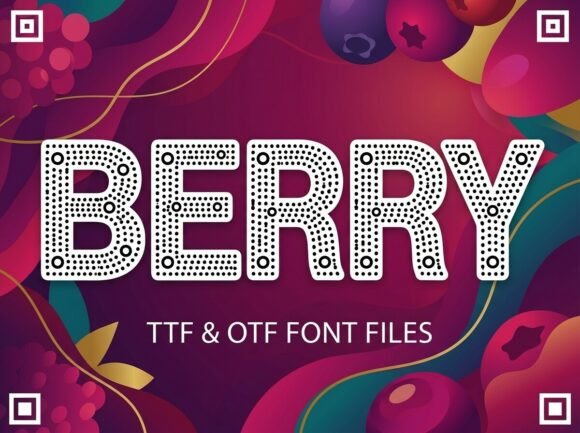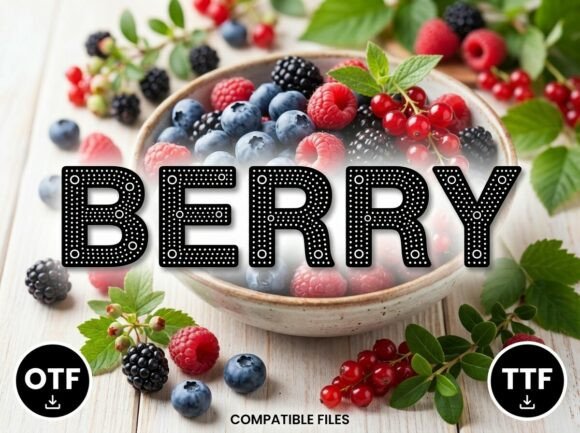
Meet Your New Summer Obsession: Berry Font
Remember the thrill of biting into a juicy, ripe strawberry on a warm summer day? The burst of flavor, the texture, the vibrant colors – it’s a sensory experience that sparks creativity and joy. That same feeling is what inspired the Berry Font, a show-stopping display typeface that’s perfect for capturing the essence of fresh, natural goodness.
Berry Font is a textured, sans-serif masterpiece that combines bold letterforms with a mesmerizing pattern of white pin-dots, reminiscent of a summer fruit’s intricate seed patterns. This stunning font is a must-have for designers looking to add a touch of whimsy and personality to their projects, from independent juice bar branding to garden-to-table restaurant logos.
Berry Font Key Features
- Unique Characteristics: Berry Font boasts a unique blend of modern and vintage elements, featuring rounded shapes, subtle texture, and a touch of whimsy, making it perfect for creative projects and branding.
Berry Font Review
At first glance, the Berry Font screams of fun and playfulness. Its rounded edges and vibrant colors make it perfect for creating eye-catching graphics and text-based designs. ✨ I can already see it being used for kids’ magazines, food labels, and even social media posts.
Here are some of the things that work well for Berry Font:
- Its varied font styles, ranging from bold to regular, provide flexibility for different design applications.
- The inclusion of uppercase and lowercase letters ensures that users can create sentences and paragraphs with ease.
- The color palette is vast, making it easy for designers to find a color scheme that matches their project’s requirements.
- The font may not be the best choice for formal or professional designs due to its playful nature.
- The font’s rounded edges can sometimes make it difficult to read, especially for long blocks of text.
- The font files may be quite large, which can impact loading times for web-based projects.
Overall, I think the Berry Font is a solid addition to any designer’s toolkit. While it may not be the best choice for every project, it’s certainly worth considering for designs that require a touch of whimsy and fun. ⚠️
Use Berry Font for creative and playful designs, such as:
– Children’s books and educational materials
– Food and beverage branding
– Fashion and lifestyle designs
Experiment with different font sizes, colors, and styles to create unique and eye-catching designs.